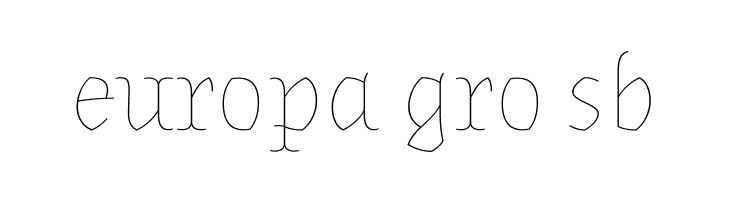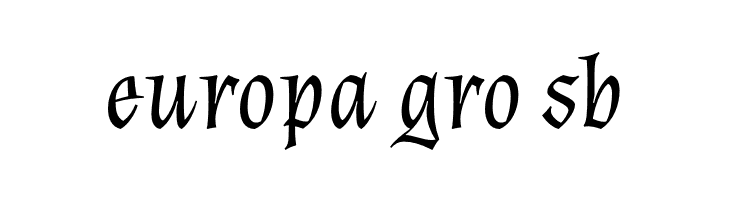
An elegant, calligraphic font with artistic curves and sharp angles.
An elegant and decorative serif font with thin strokes and unique serifs.
A classic, calligraphic font with elegant, flowing letterforms and sharp serifs.
A classic serif font with calligraphic influences and elegant strokes.
A classic serif font with elegant, decorative terminals and strong readability.
A classic serif font with elegant, calligraphic influences and ornate details.
A bold serif font with sharp serifs and high contrast, ideal for impactful headlines.
A bold, italicized serif font with angular serifs and a dynamic, calligraphic style.
An elegant, italic serif font with a classic, calligraphic style.
A classic serif font with elegant, calligraphic influences.